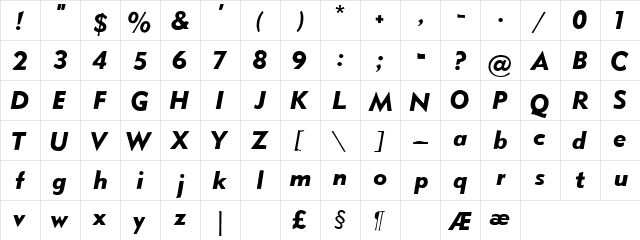
Metro Black Oblique HPLHS
Design Context for Metro Black Oblique Typeface
Metro Black Oblique offers clean, dependable letterforms without strong stylistic allegiance, making it a practical choice for designers who need flexibility. The dynamic lean of this cut emphasises speed and emphasis in any layout.
Pro Tip: Use Metro Black Oblique for emphasis, pull quotes, and subheadings where its slanted energy can add rhythm to the layout.